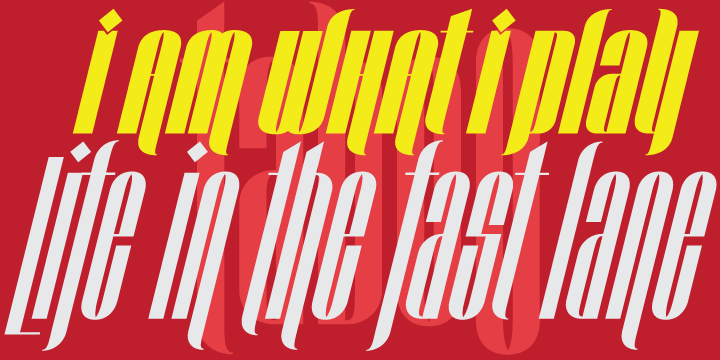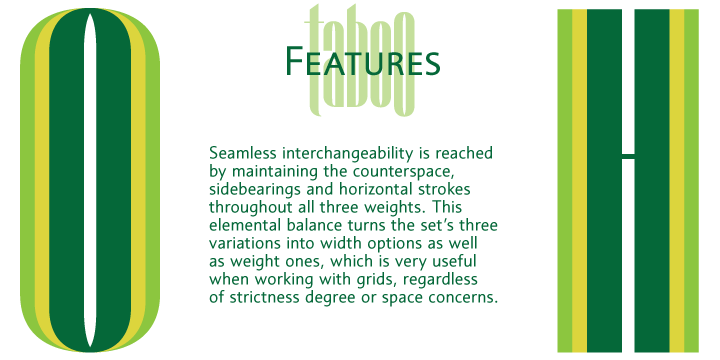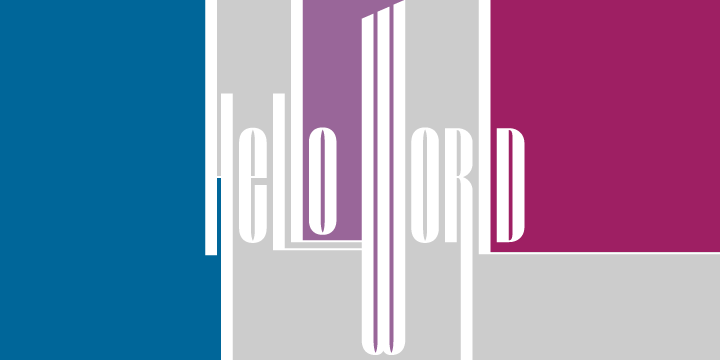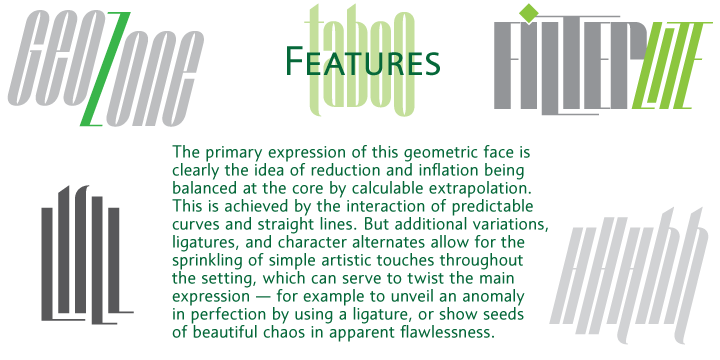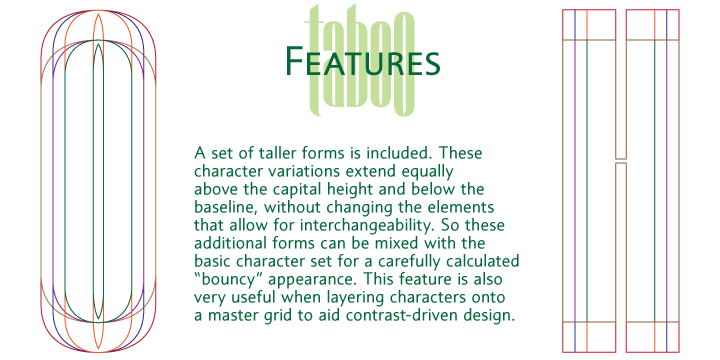
Taboo Pro is a display font family. This typeface has six styles and was published by Canada Type.
Taboo is a versatile font family inspired by the magnificent geometric experiments made by Armenian lettering artist Fred Africkian during the late 1970s. Virtually unknown in the west, Africkian was one of the most talented eastern block artists. Though mainly a calligrapher working with traditional tools, he embraced geometry on multiple occasions for the sake of drawing simple modern Armenian and Cyrillic alphabets. Though he normally tried to maintain in his work a certain homage to Mesrop Mashtots (5th century Armenian monk who invented the Armenian alphabet), his late 1970s experiments made use of so many modern elements that the results were hailed as “real art mingled with science.”
The principal idea behind the Taboo family is simple geometry of constant counter space and identical horizontals, with the verticals serving as the main index of weight and width. The forms inflate geometrically, but their core remains unchanged. The applications of such interchanging abilities are limitless. Add to that a few on- demand decorative elements, and science becomes art.